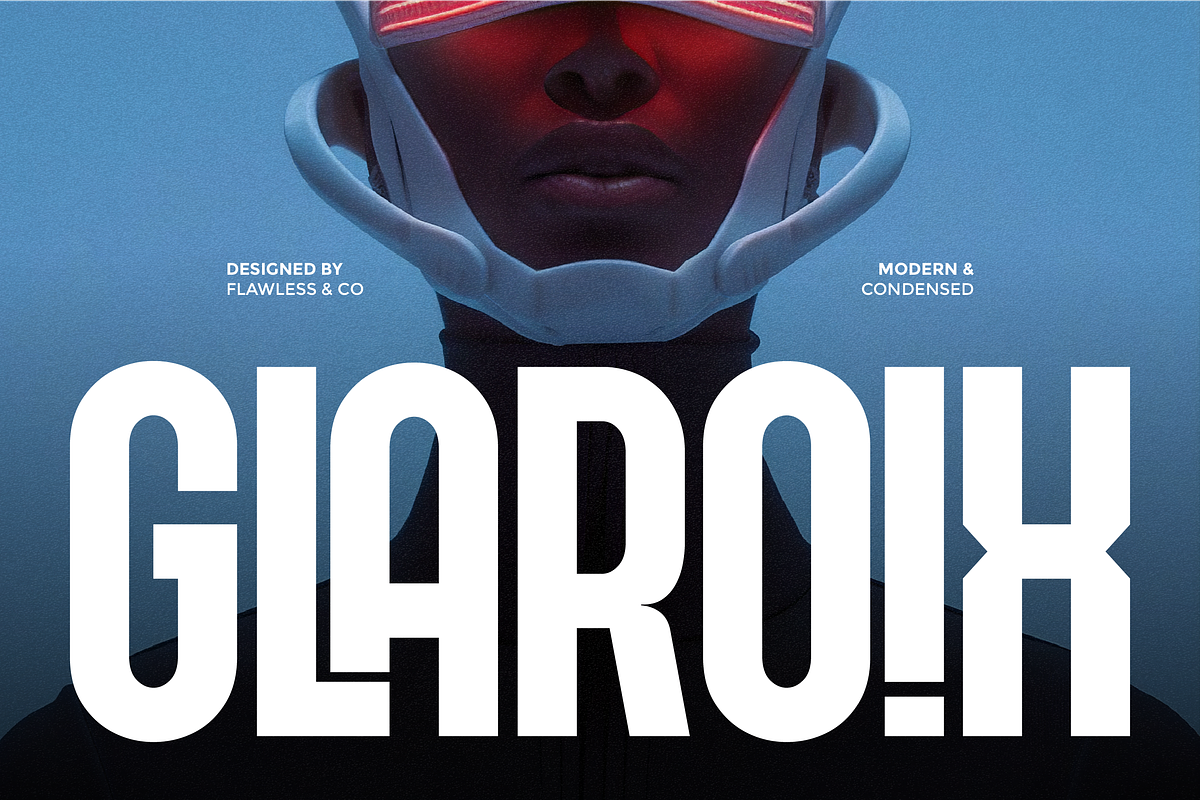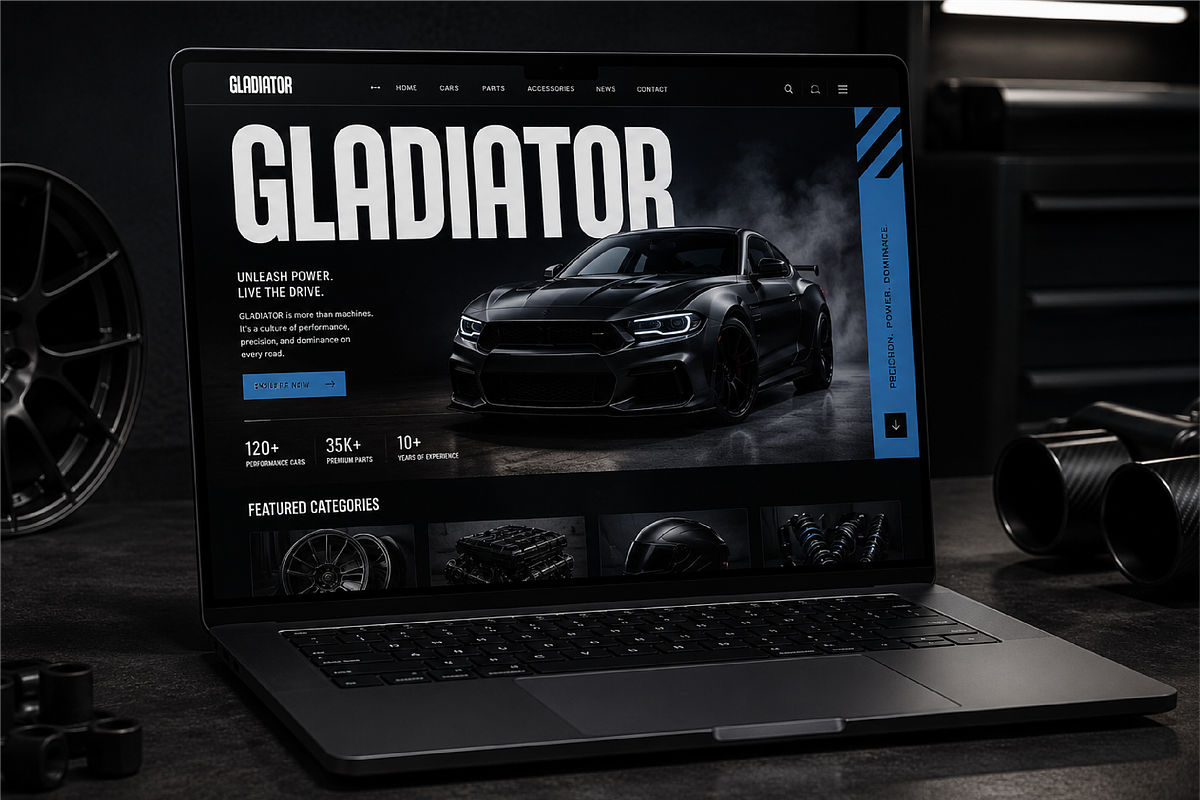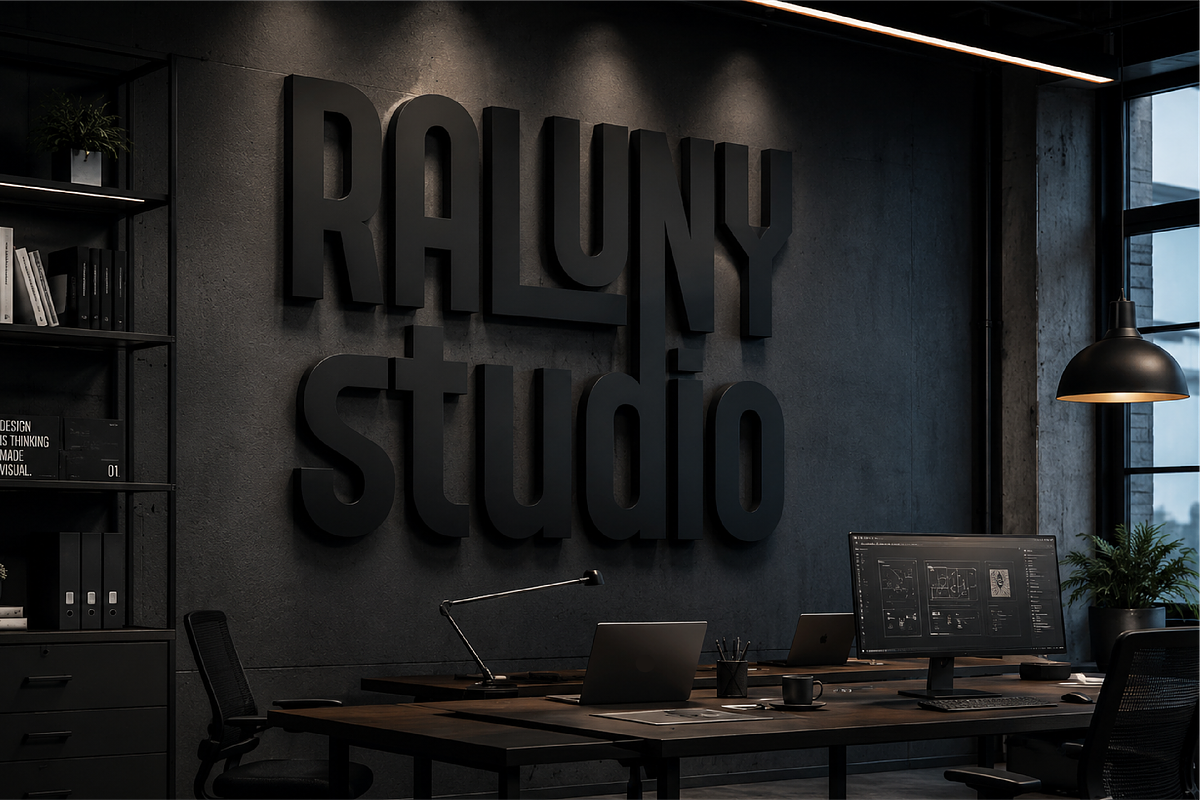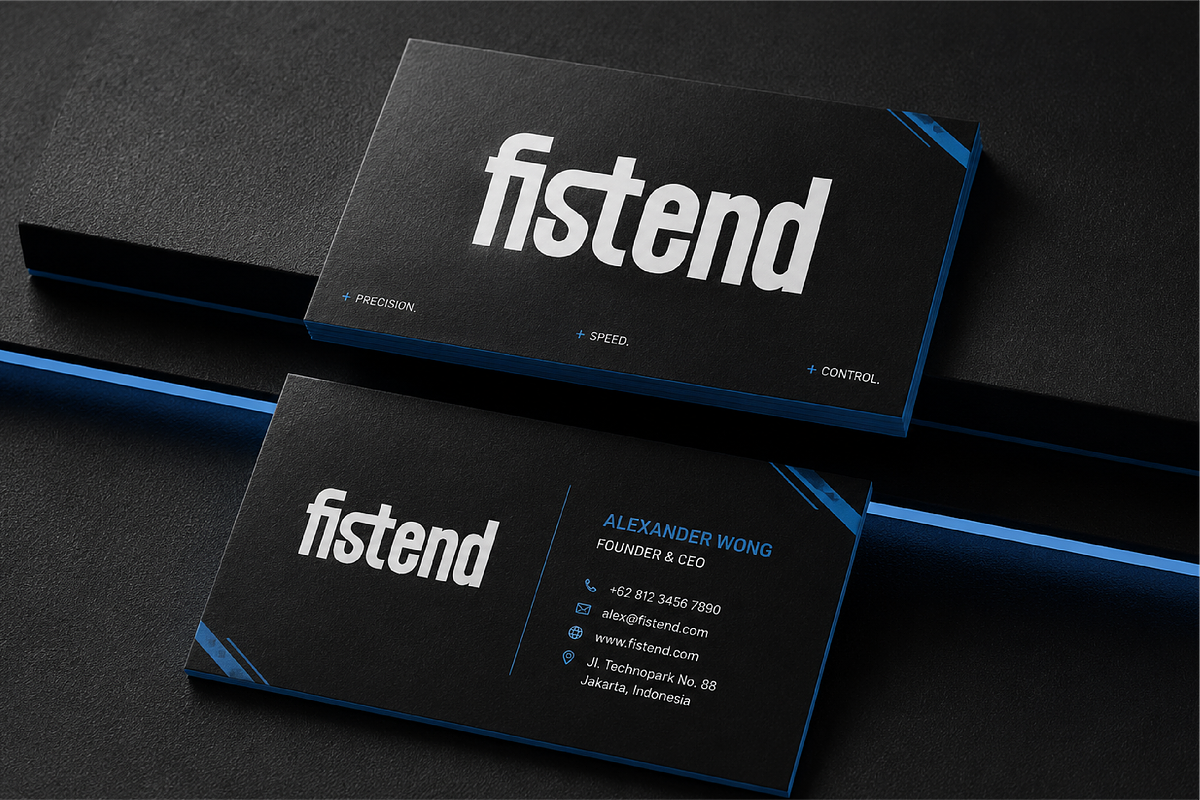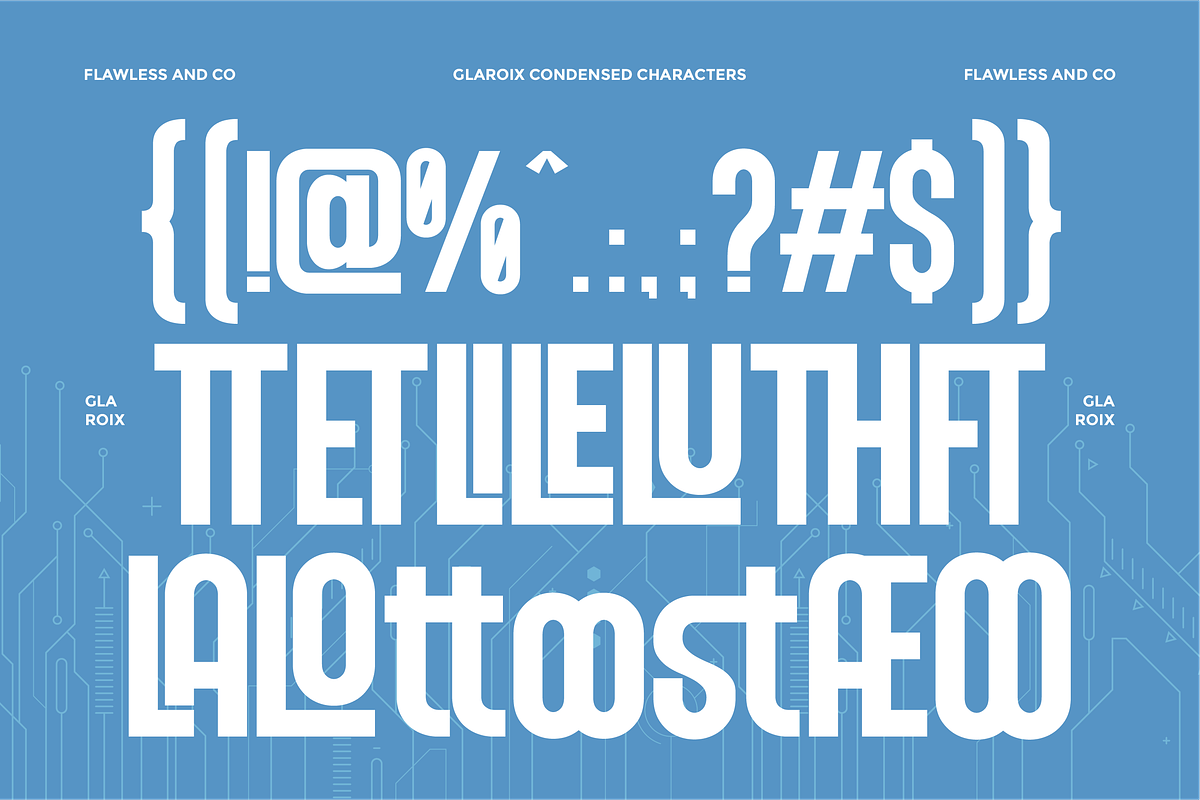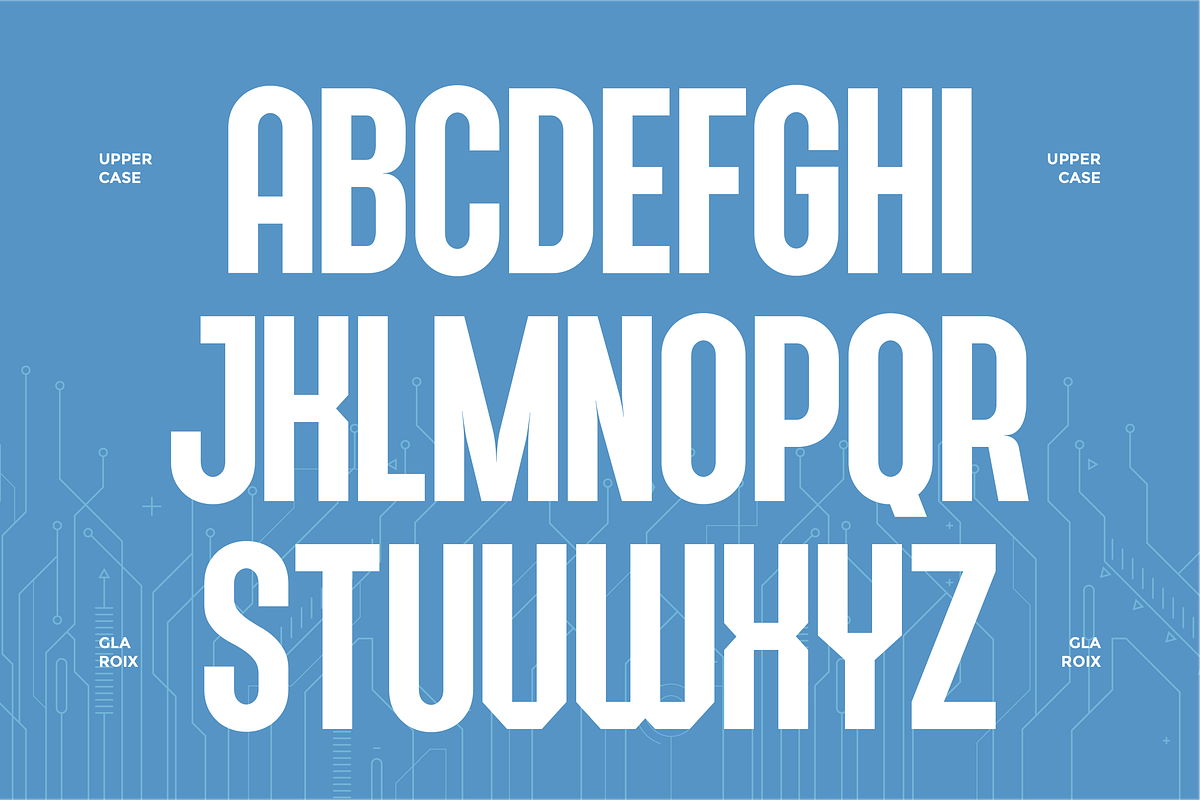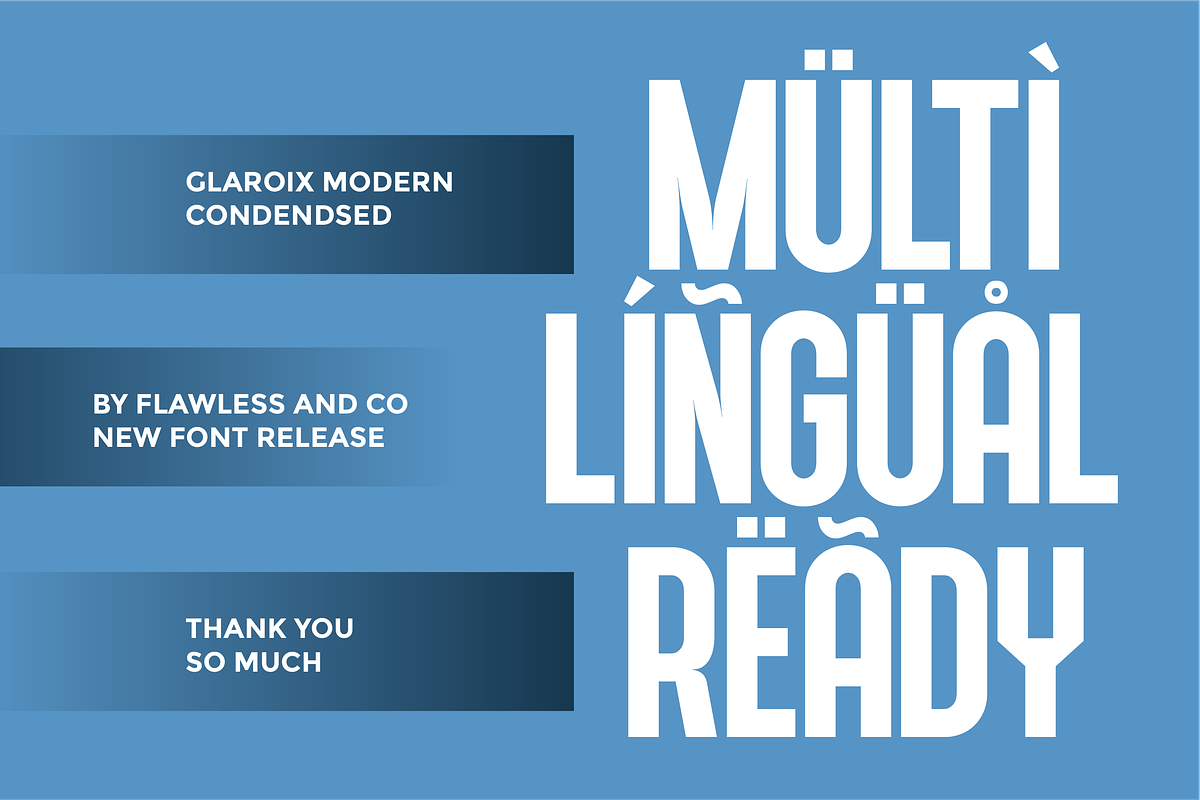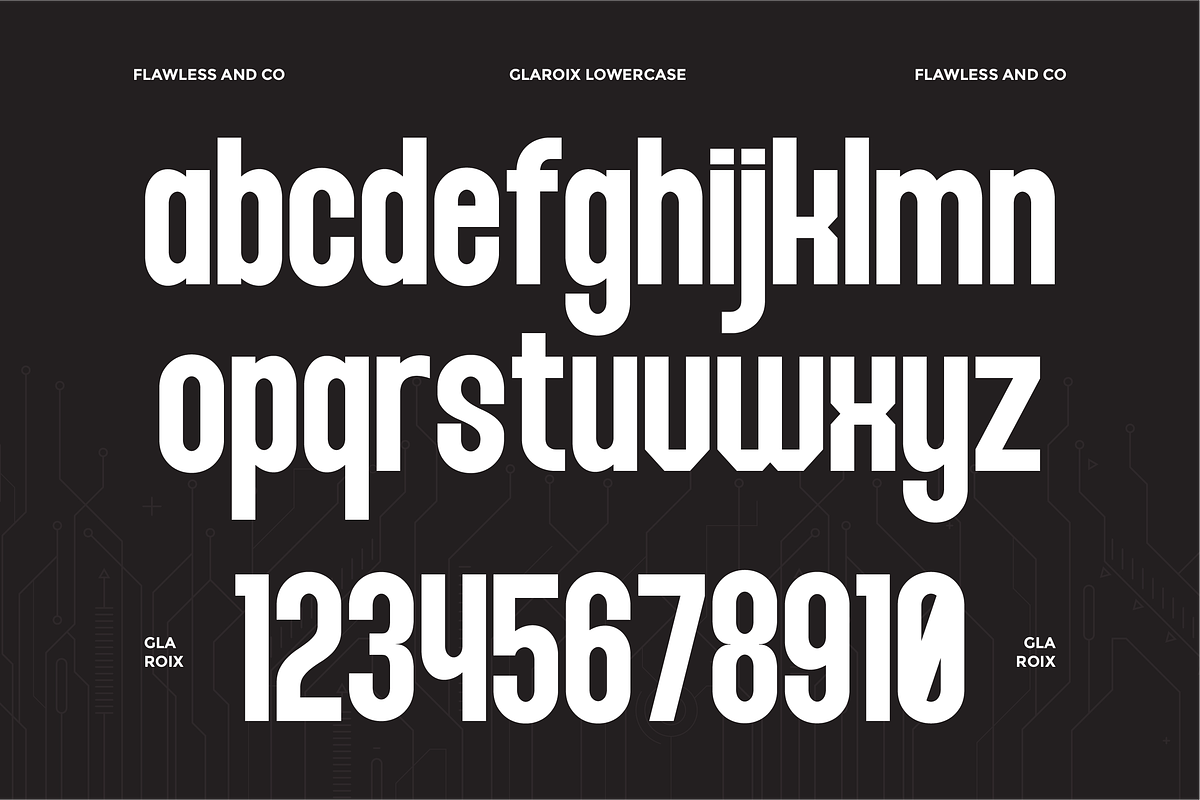
Glaroix - Modern Condensed Sans Font
Glaroix is a modern condensed sans font crafted for designers who need typography that feels modern, powerful, and efficient. With its narrow proportions, clean construction, and balanced geometry, Glaroix delivers a strong visual presence while maintaining a refined and professional appearance. Its condensed design allows more content to fit within limited space, making it an excellent choice for impactful headlines and modern branding.
Alternates & Ligatures
Who Should Use Glaroix?
Glaroix is perfect for designers, creative agencies, startups, and modern brands looking for a condensed sans serif font with a clean and professional style. It’s especially suitable for projects that require strong visual hierarchy, contemporary aesthetics, and efficient typography.
Suitable For:
Corporate and startup branding
Logo and wordmark design
Advertising and promotional campaigns
Editorial and magazine headlines
Technology and innovation projects
Website and digital interfaces
Social media content
Modern display typography